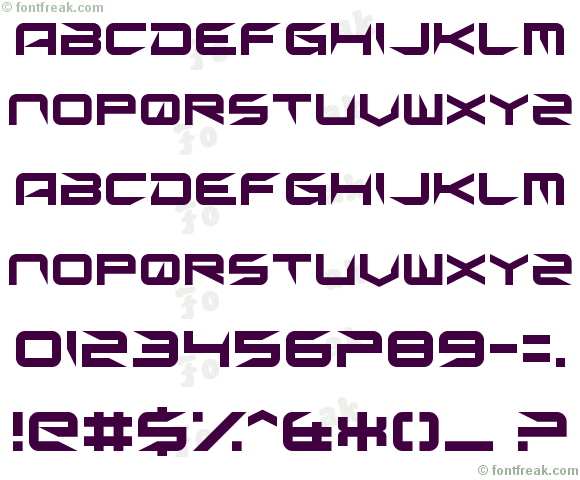
Sharp Regular
About Sharp Regular
Sharp Regular, designed by Andrew McCluskey in 2013, is a striking sans-serif font that exudes modernity and clarity. This font is characterized by its clean lines and geometric form, making it an ideal choice for a variety of contemporary design needs. The stroke weight is consistent throughout, offering a balanced appearance that enhances readability. With its minimal contrast and ample spacing, Sharp Regular ensures that text remains legible even at smaller sizes, making it a practical choice for both print and digital applications.
This font is particularly well-suited for use cases such as restaurant menus, where clarity and simplicity are paramount, as well as event flyers that require a bold statement without overwhelming the viewer. Additionally, its modern aesthetic makes it an excellent choice for branding materials, including logos and business cards, allowing small business owners to convey professionalism. Content creators will find that Sharp Regular adds a contemporary touch to social media graphics and promotional materials, making it versatile for various marketing strategies.
Targeting graphic designers and small business owners, Sharp Regular offers a unique blend of style and functionality. Its straightforward design caters to those who appreciate minimalistic aesthetics while needing a font that can perform well in diverse settings.